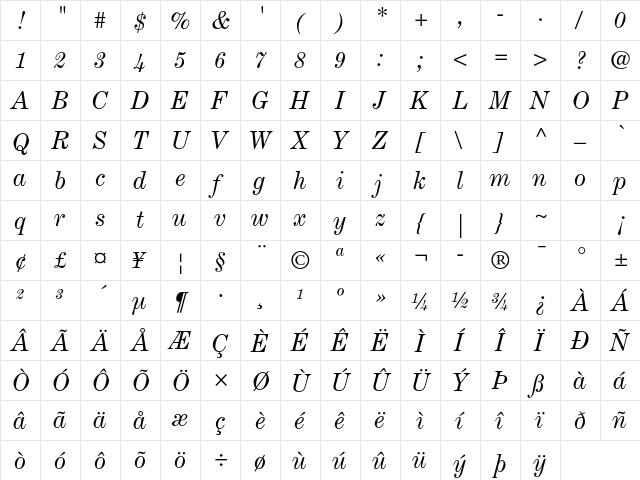
Century Expanded LT Std Italic Font Preview
| Designer | Linn Boyd Benton |
Design Context for Century Expanded LT Std Typeface
Century Expanded LT Std takes a measured approach to typography — its balanced proportions and neutral character make it a reliable workhorse for both digital and print work. The dynamic lean of this cut emphasises speed and emphasis in any layout. The delicate stroke weight brings airiness and refinement to layouts.
Pro Tip: Try Century Expanded LT Std for annotation and caption copy alongside an upright companion — the contrast in angle creates a dynamic but ordered typographic system.